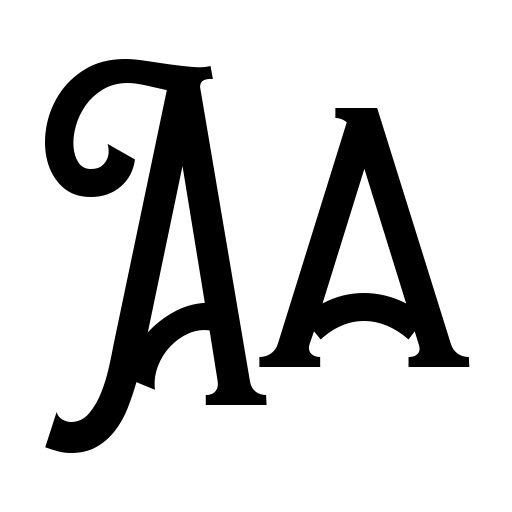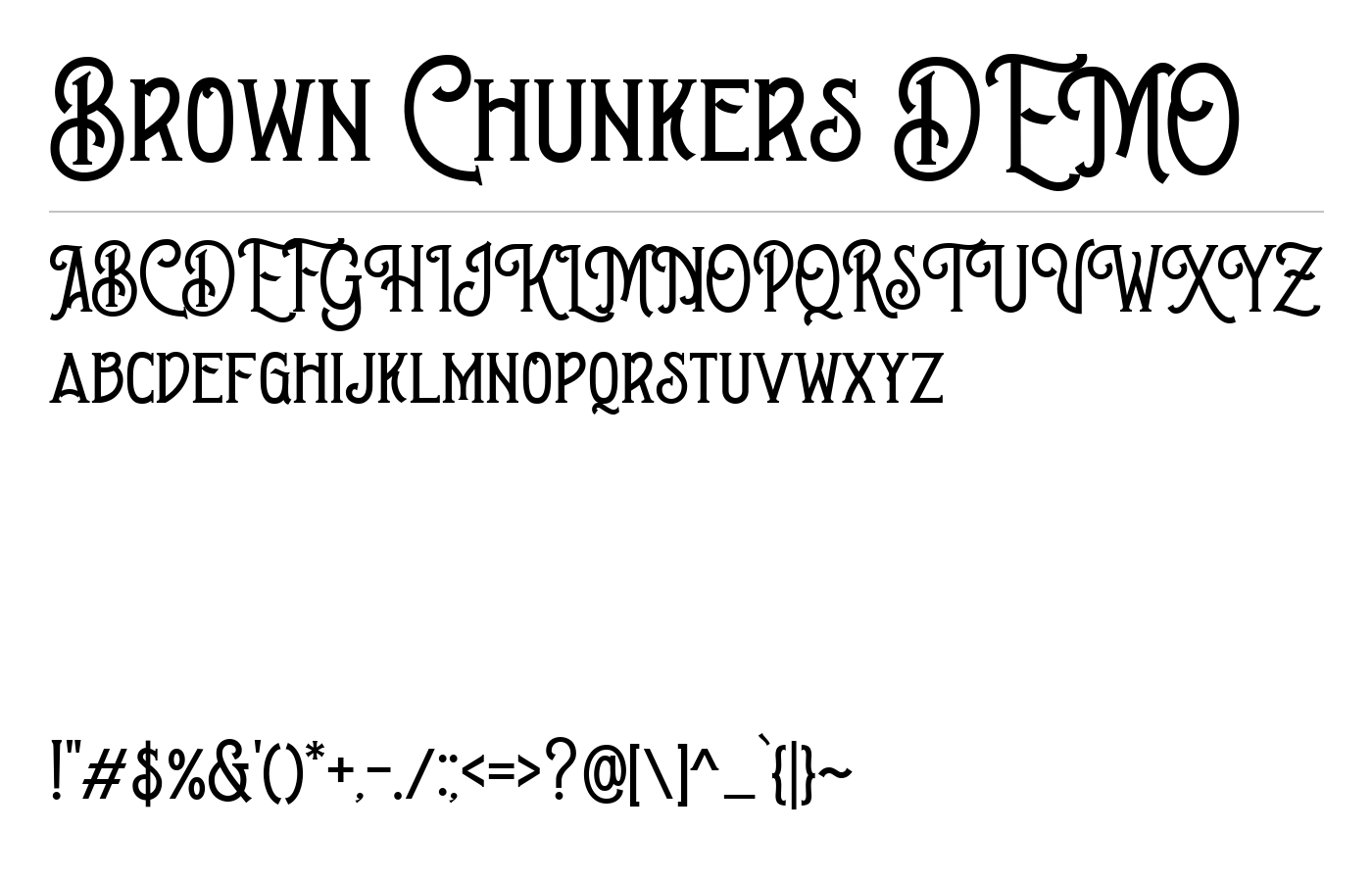
Brown Chunkers DEMO is a bold, decorative serif font with a distinctive vintage flair, featuring ornate, curly details that give it a playful yet elegant character. Its tall, narrow letterforms with strong contrast and unique swashes make it ideal for eye-catching headlines, logos, and branding that seek to convey a sense of old-world charm and creative flair. This font works especially well for packaging, posters, and fashion or boutique identities where a dramatic, stylish impact is desired.
Brown Chunkers DEMO Font
About Brown Chunkers DEMO Font
| Font family | Brown Chunkers DEMO Font |